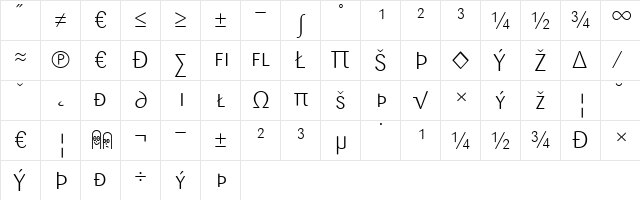
Sari Light Font Preview
Sari Light
Sari Light Font Details
| Foundry | Hans Reichel, . Published by FontShop International. FontFont Release |
Design Context for Sari Typeface
Sari offers clean, dependable letterforms without strong stylistic allegiance, making it a practical choice for designers who need flexibility. Its slender proportions lend an understated elegance to any composition.